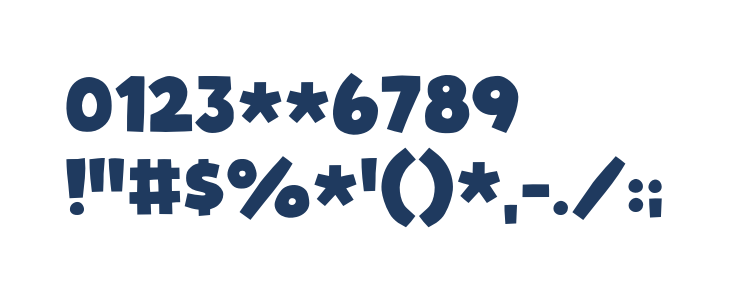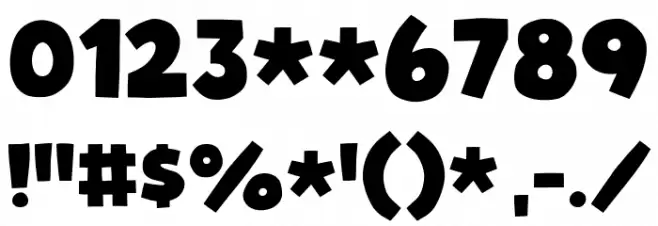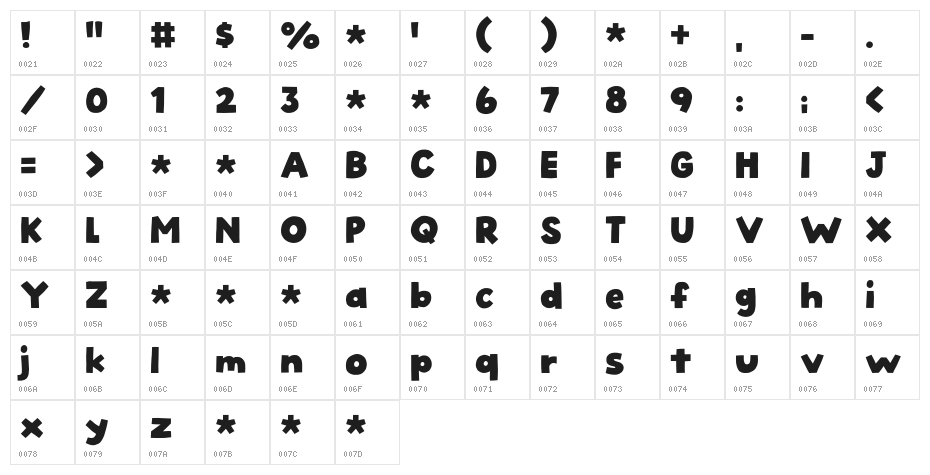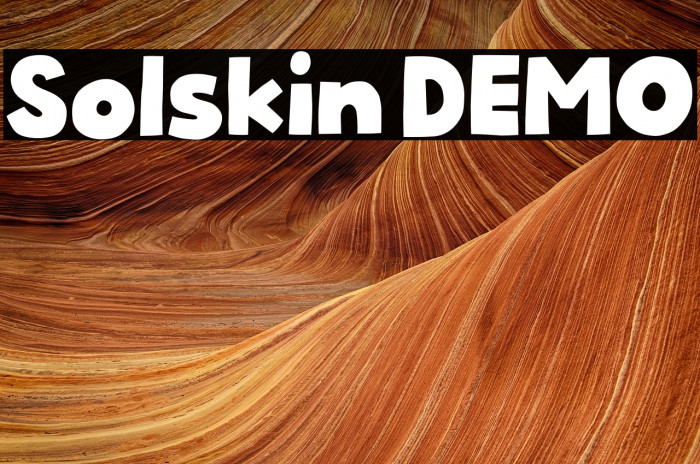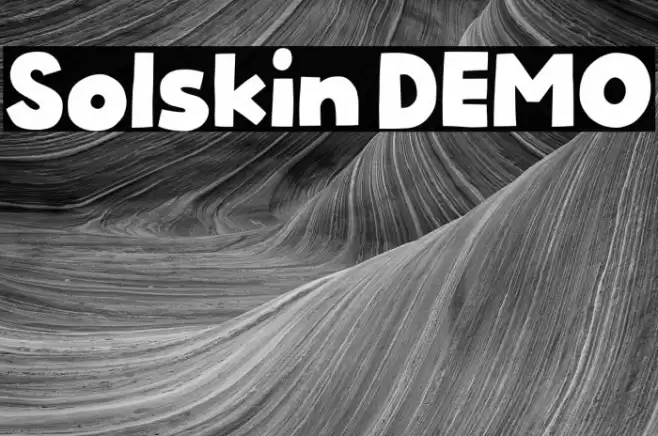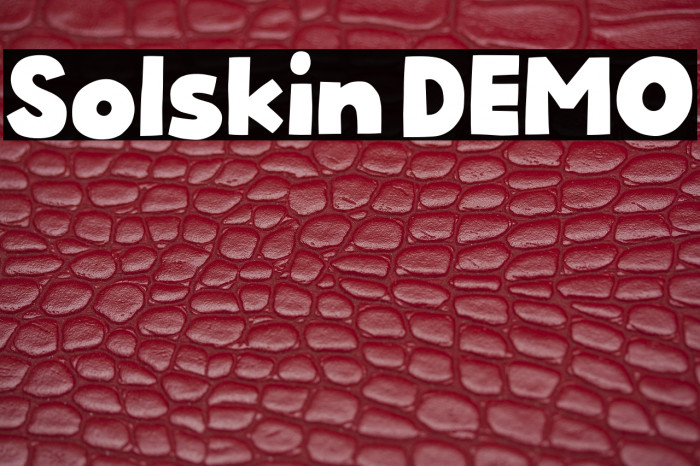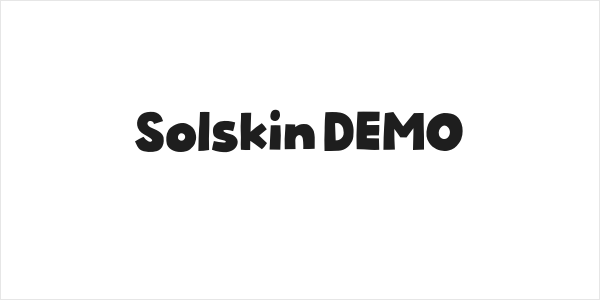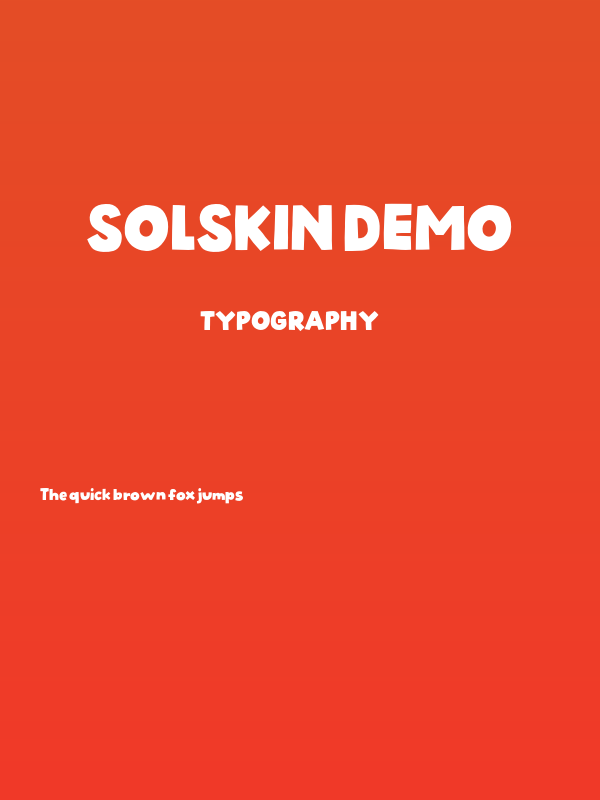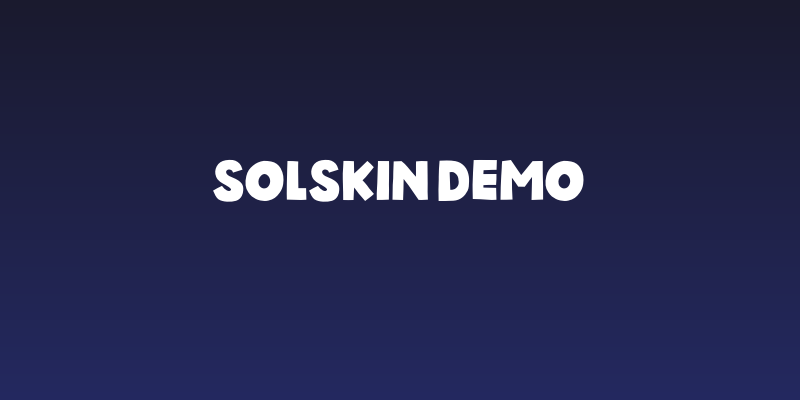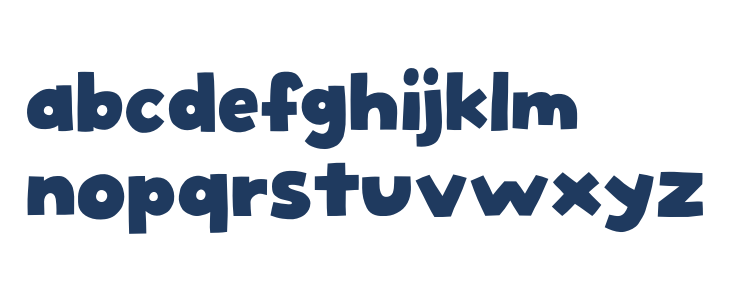
Solskin DEMO Font
Solskin DEMO Description
This font features a bold and playful design, characterized by its thick, rounded strokes and whimsical style. The letters are slightly irregular, giving them a hand-drawn appearance that adds a touch of personality and charm. The uppercase and lowercase letters maintain a consistent weight, contributing to a cohesive look. The numerals and special characters follow the same playful aesthetic, making them suitable for creative and informal applications. The overall style is engaging and eye-catching, perfect for projects that require a fun and approachable feel.
| Proposed Projects | Ideal for children's books, playful branding, posters, and creative invitations. |